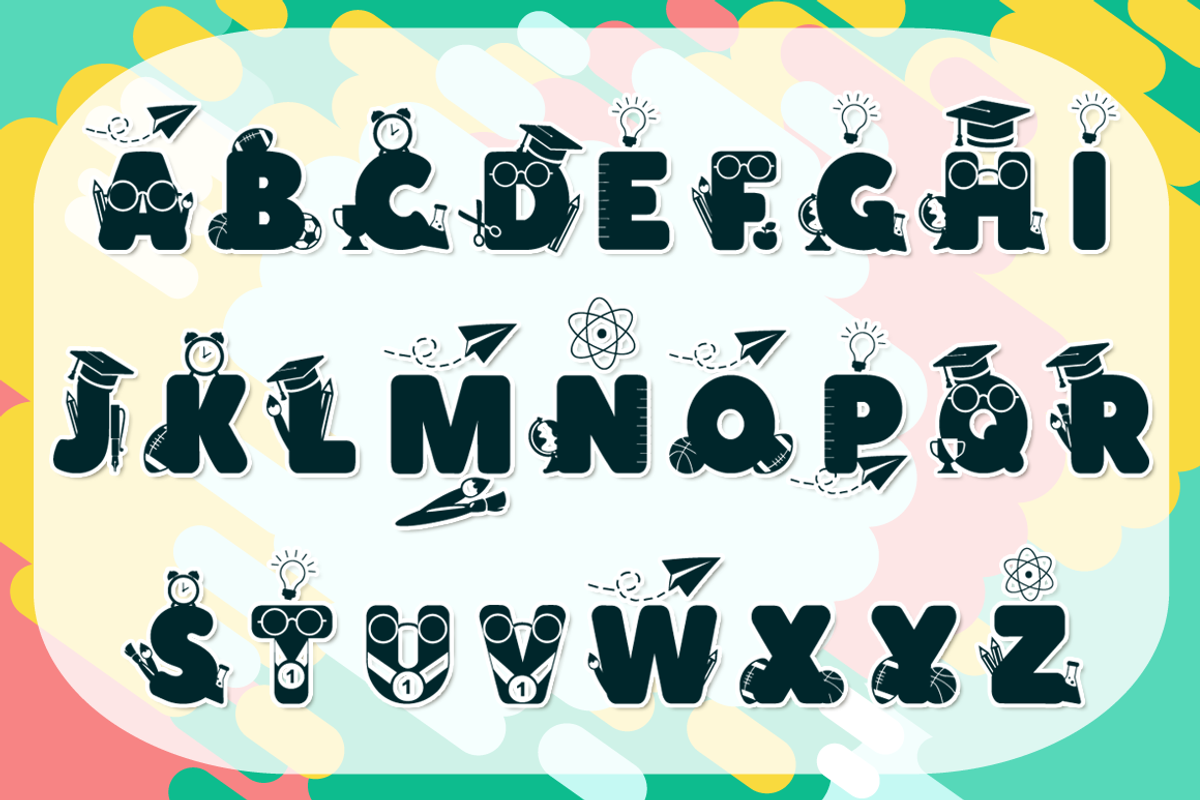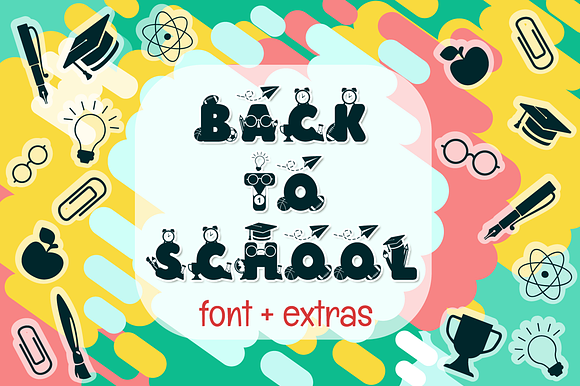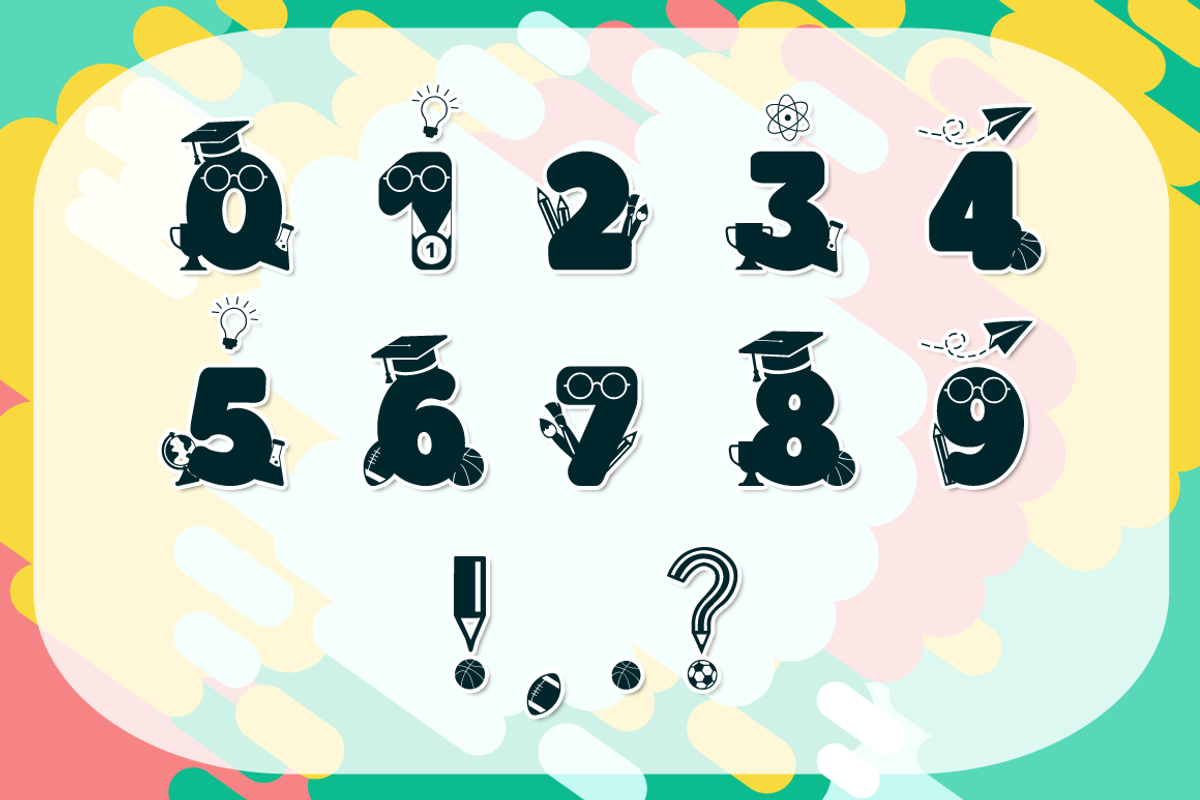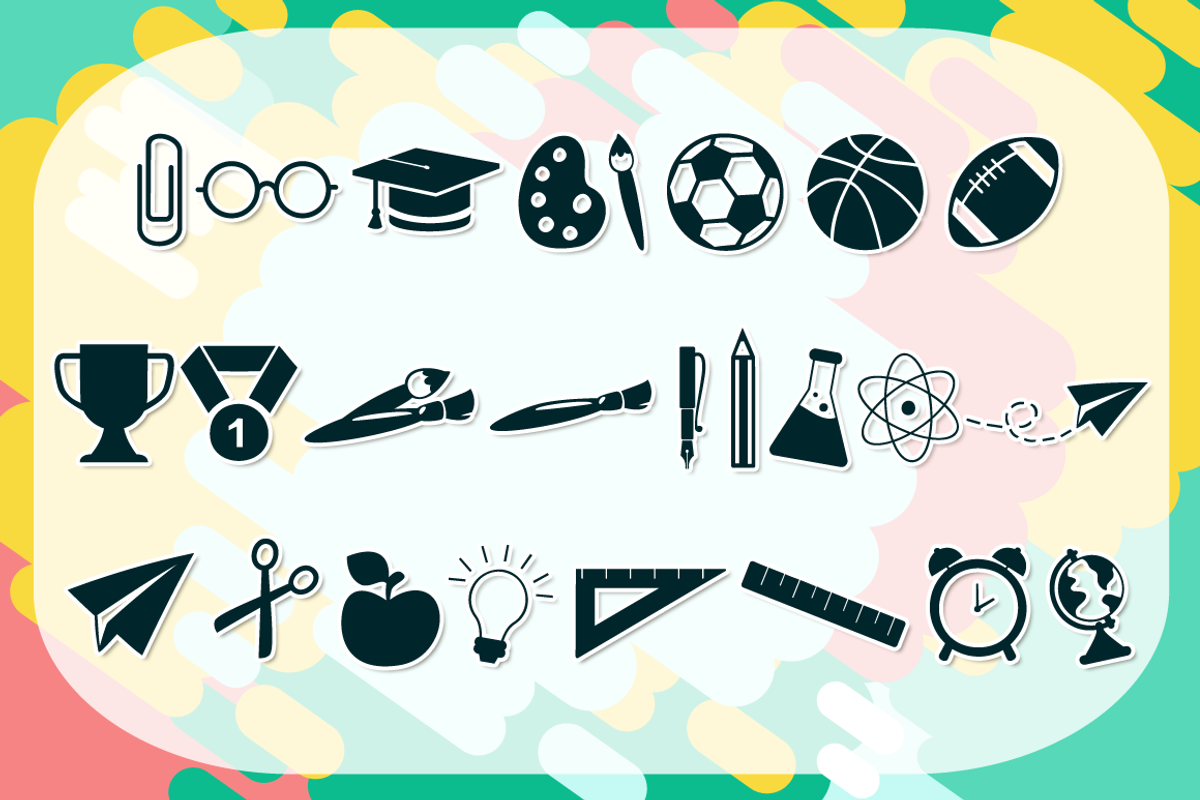
Back to School Font + Bonus Extras
I created this font last year, but it didn't look quite as I wanted. So I tweaked it, modified the letters and kerning a bit and now it's good to go. This font is perfect for your back to school projects or anything that's related to school and learning. The Back to School Extras comes with 24 bonus elements.
The font is created from scratch, using as little points as possible to ensure you get the best results with minimum difficulty. Optimized for Crafters with Cricut Design Space, Silhouette Studio, ScanNCut, and all major brands. The cutting takes much less time because the number of points in each letter is reduced to a minimum!
Back to School Regular in OTF & TTF Format. Comes with uppercase A-Z letters, 0-9 numbers, and limited punctuation.
Back to School Extras in OTF & TTF Format. Comes with 24 school-related silhouettes (a-x letters).